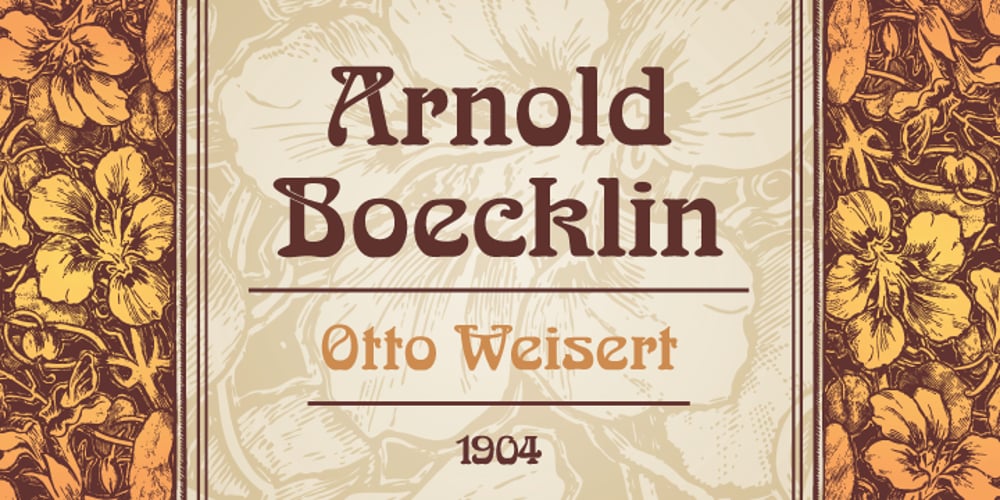
Arnold Böcklin
Arnold Böcklin font
Arnold Böcklin Font Family was designed by Otto Weisert and published by URW Type Foundry. Arnold Böcklin contains 2 styles and family package options. Arnold Boecklin is a true Art Nouveau font, evocative of outdoor cafes in the years prior to World War l. Arnold Boecklin seems to be telling a story, with its decorative curves and varying emphasis of strokes. The Arnold Boecklin font should be used for specific copy as in headlines or advertisements, bearing in mind its strong design.Arnold Boecklin is a trademark of Linotype GmbH and may be registered in certain jurisdictions.